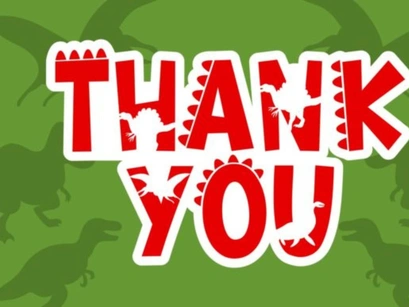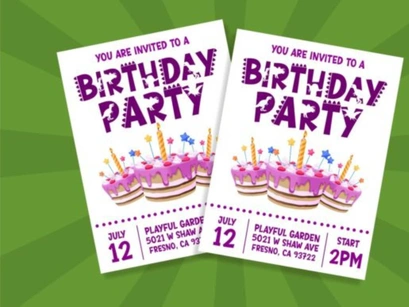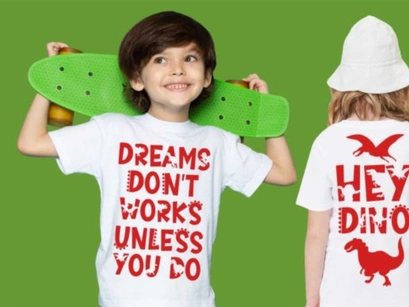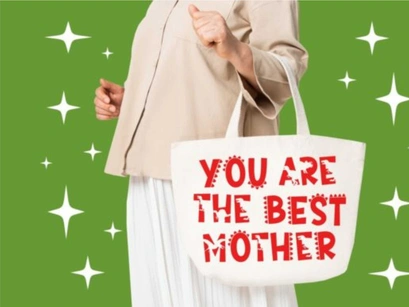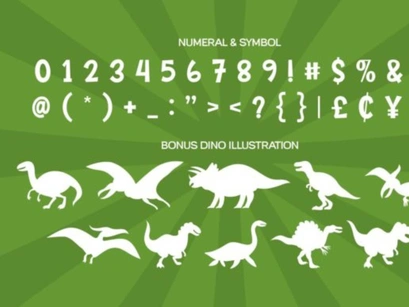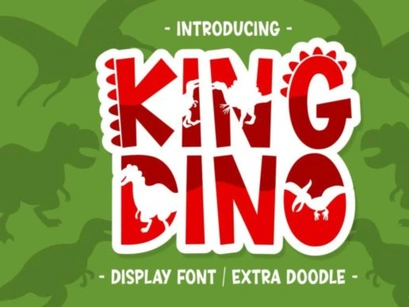
King Dino is a friendly, bold and thick lettered display font. It is PUA encoded which means you can access all of the glyphs and swashes with ease! This font is perfect for children themed designs, especially when combined with bright colors.